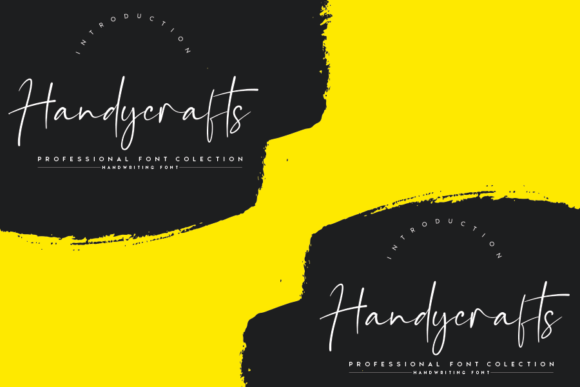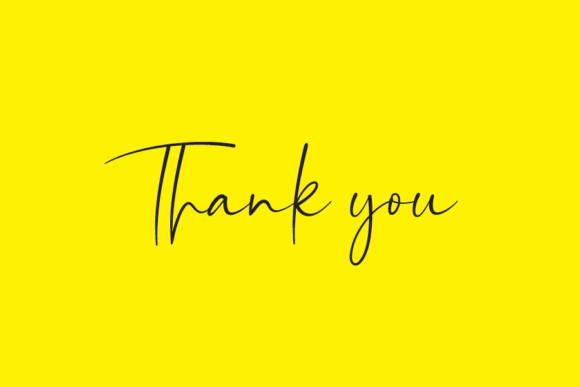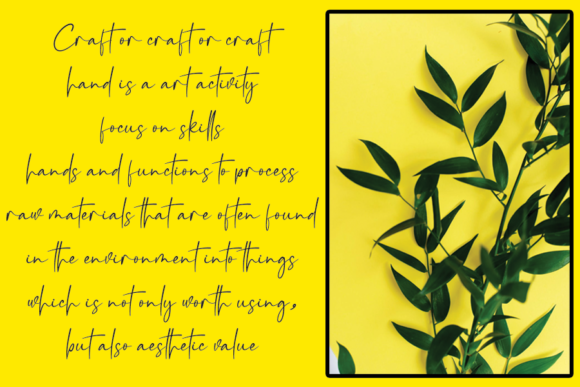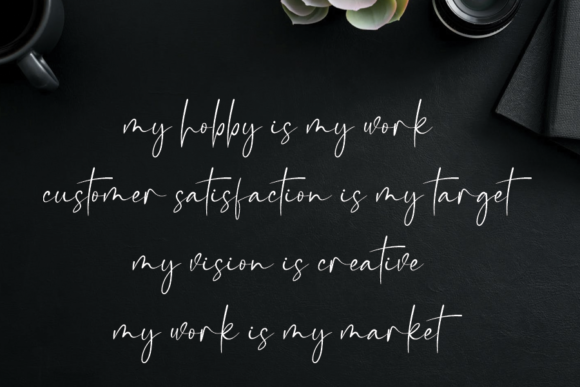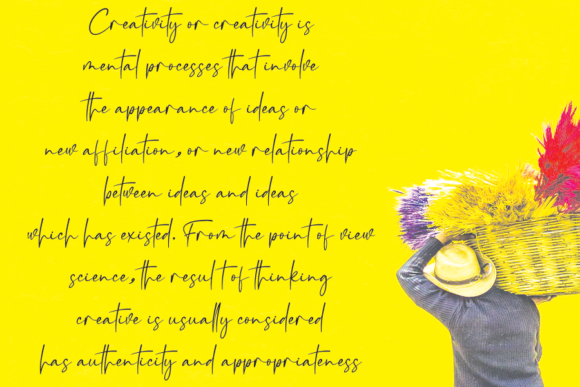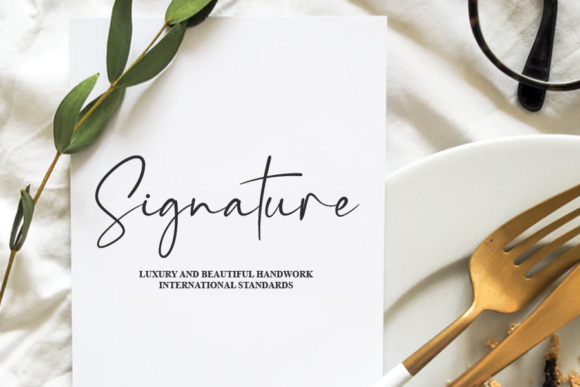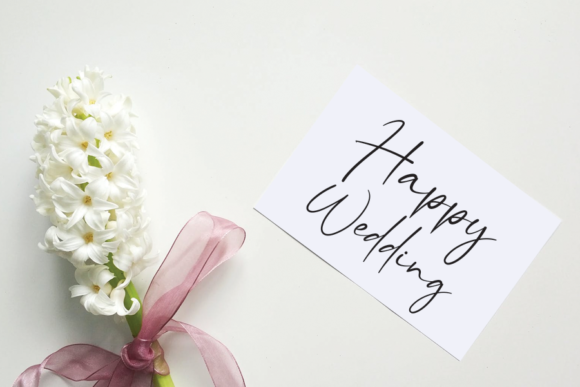
Handycrafts Font
About Handycrafts Font
Handycrafts is a flowing handwritten font, described by an elegant touch, perfect for your favorite projects. Fall in love with its incredibly distinct and timeless style and use it to create spectacular designs!